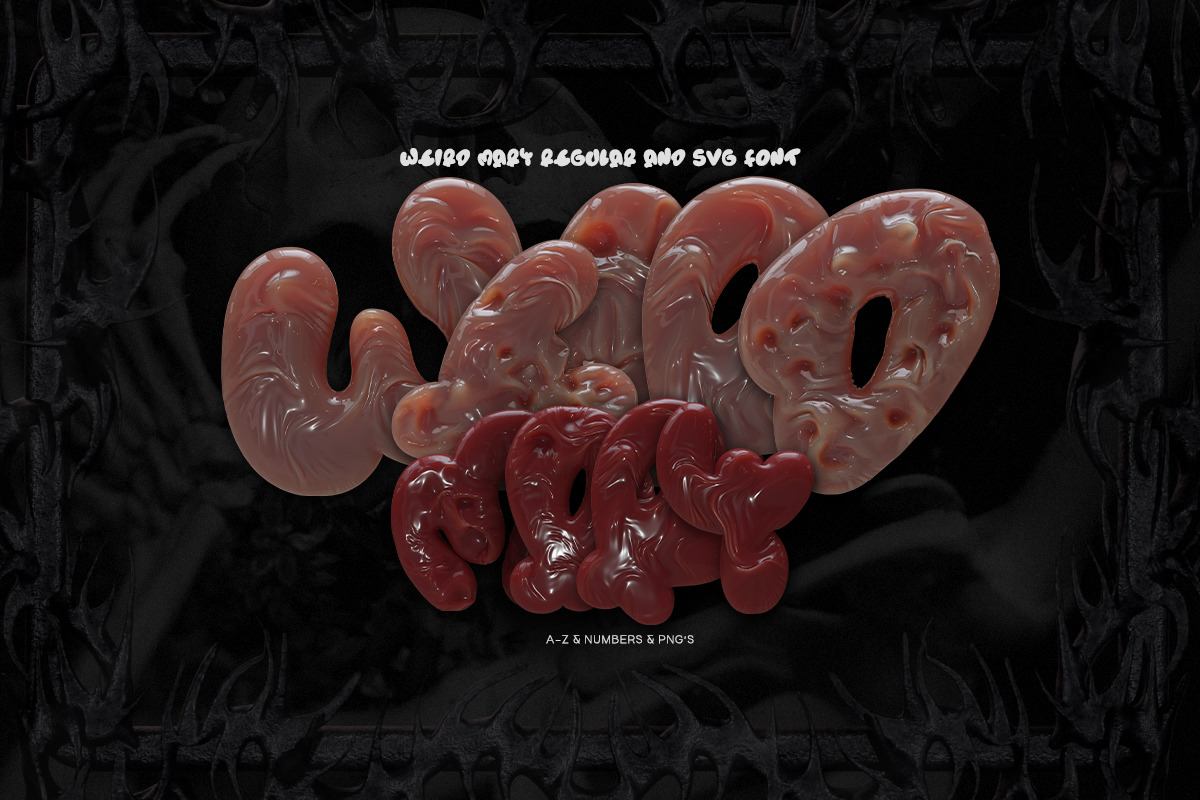
Weird Mary Halloween Font Free Download is a quirky, spooky typeface that perfectly captures the playful side of Halloween. With its crooked letters, eerie charm, and hand-drawn feel, this font is ideal for trick-or-treat party invites, haunted house posters, creepy crafts, seasonal merch, and ghoulish social media graphics.
Weird Mary combines a fun cartoon vibe with a touch of spooky weirdness—making it great for kid-friendly Halloween themes or vintage horror-inspired designs. Each letter feels like it came from a witch’s sketchbook, full of mischief and mystery.
Perfect for both digital and print projects, it’s a must-have for designers looking to stir up some spooky fun.